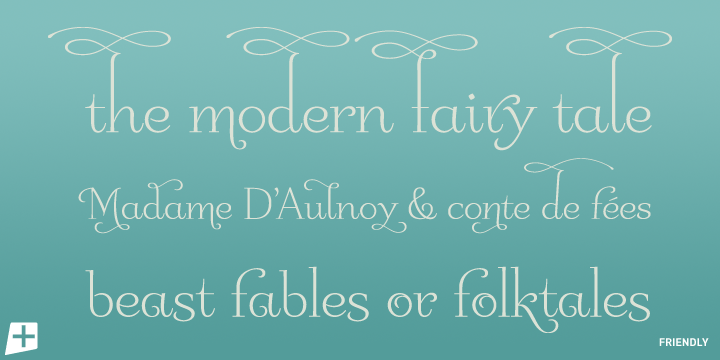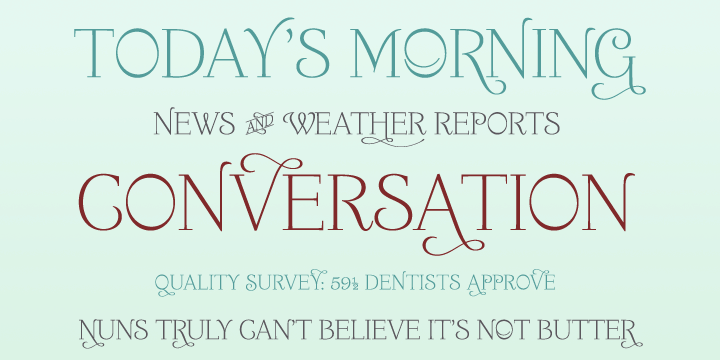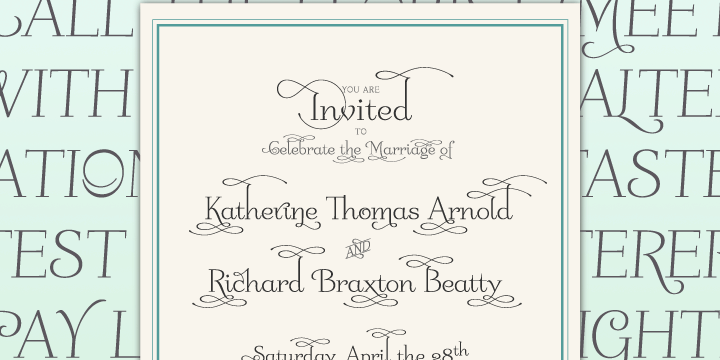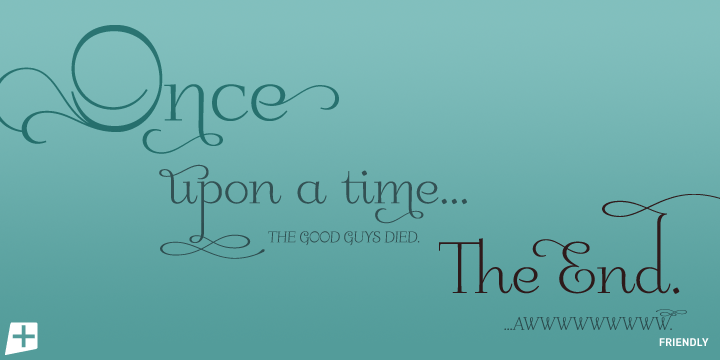
Friendly is an homage to Morris Fuller Benton\’s adorable Announcement typeface. It is not a strict interpretation, digital revival or reverent reproduction of the original letterforms? but I would be remiss and shady to not acknowledge the letterforms…